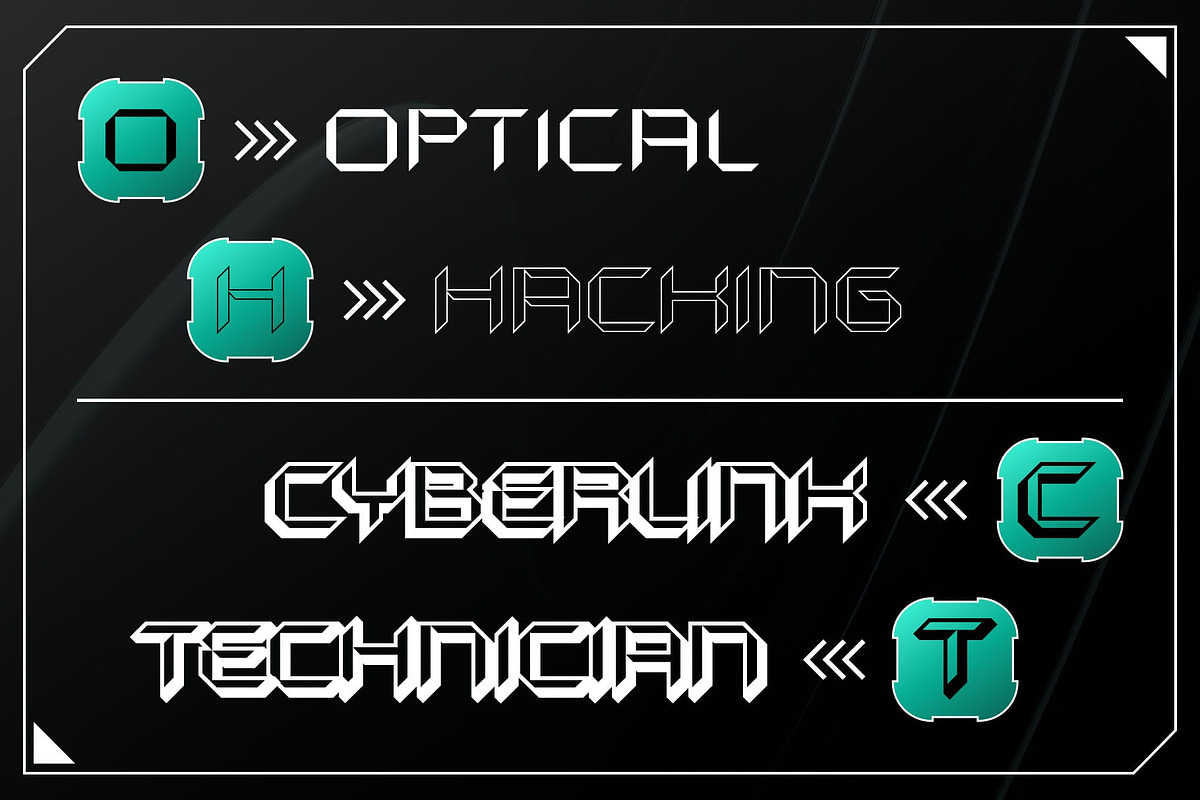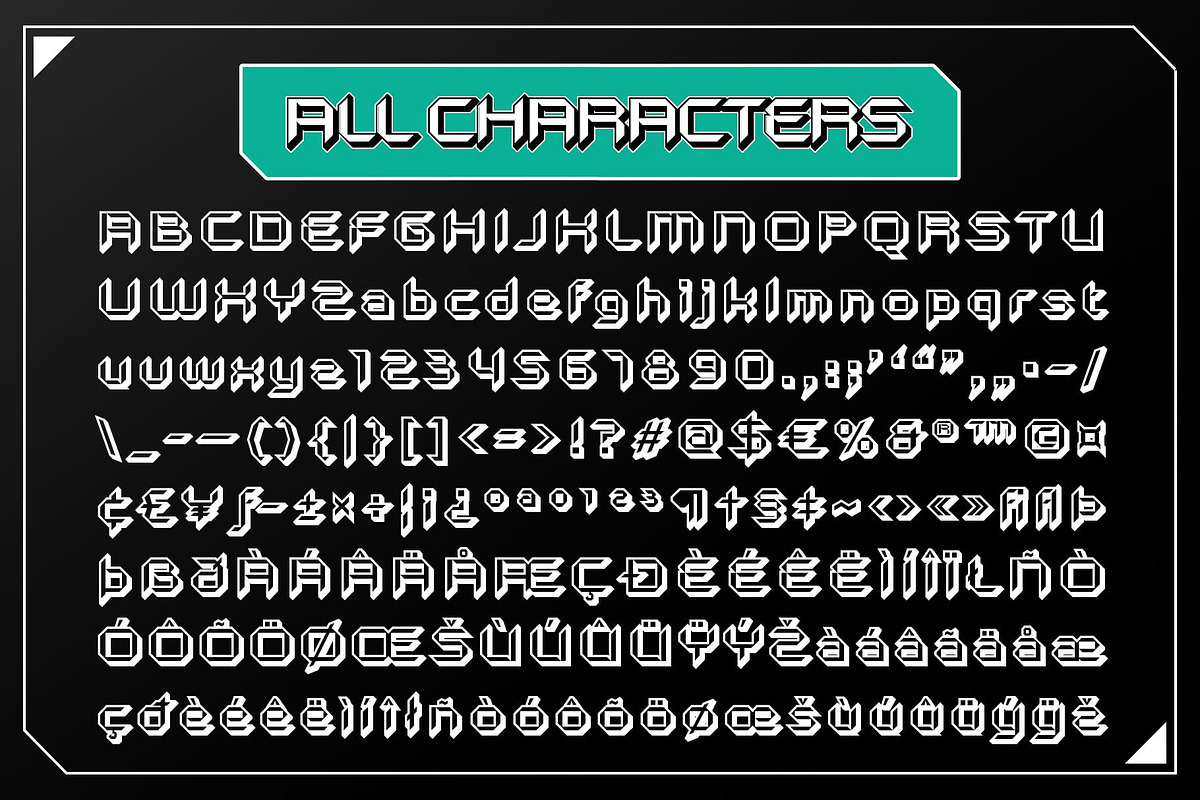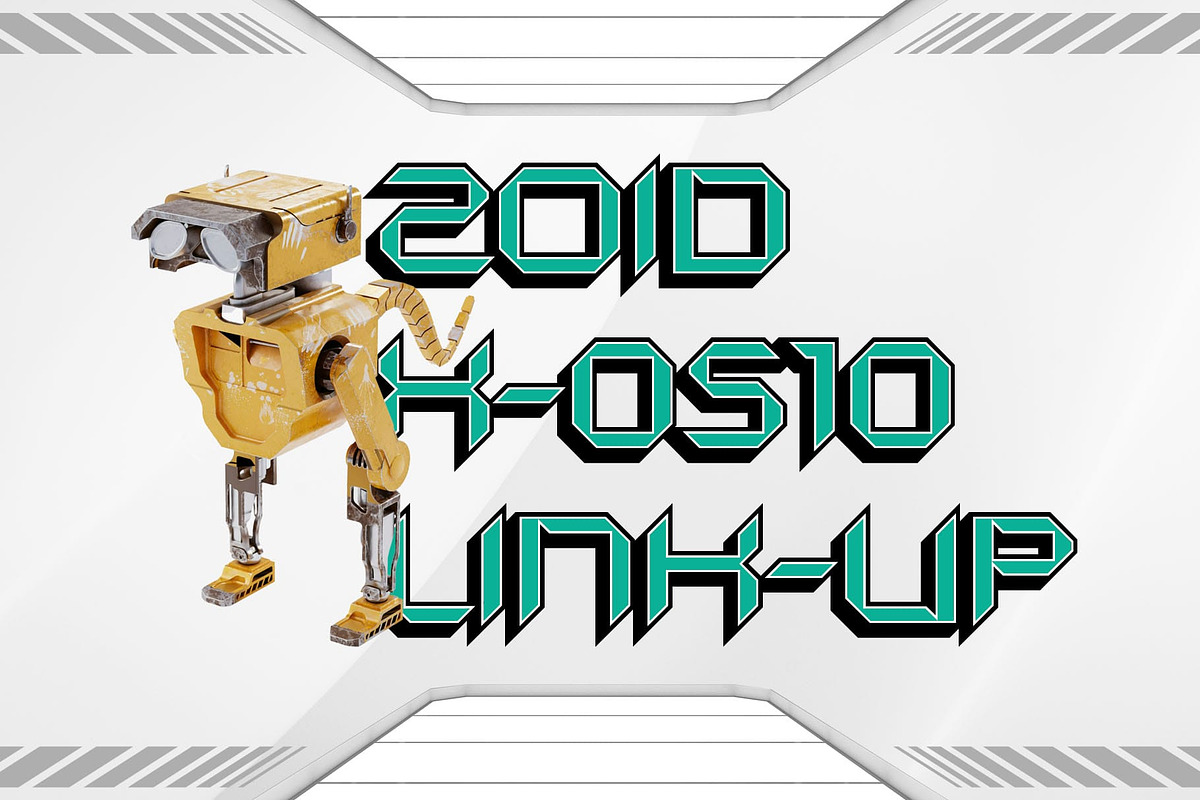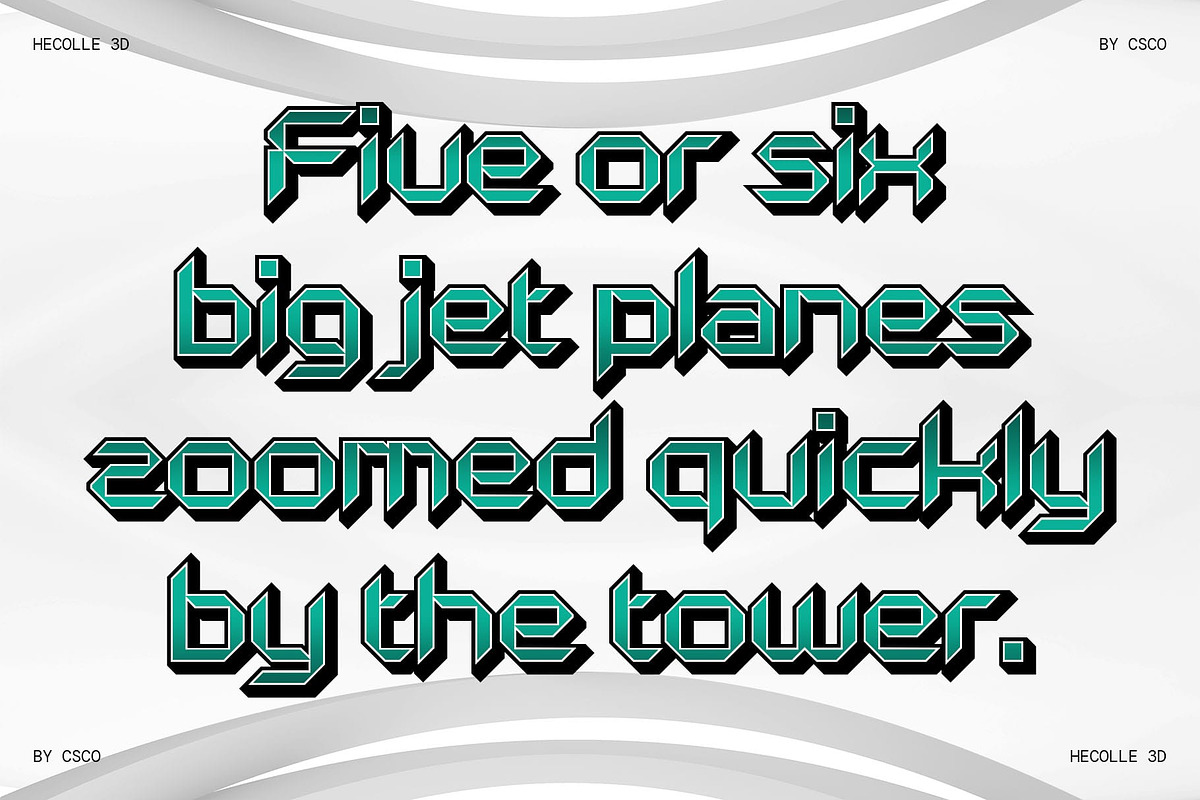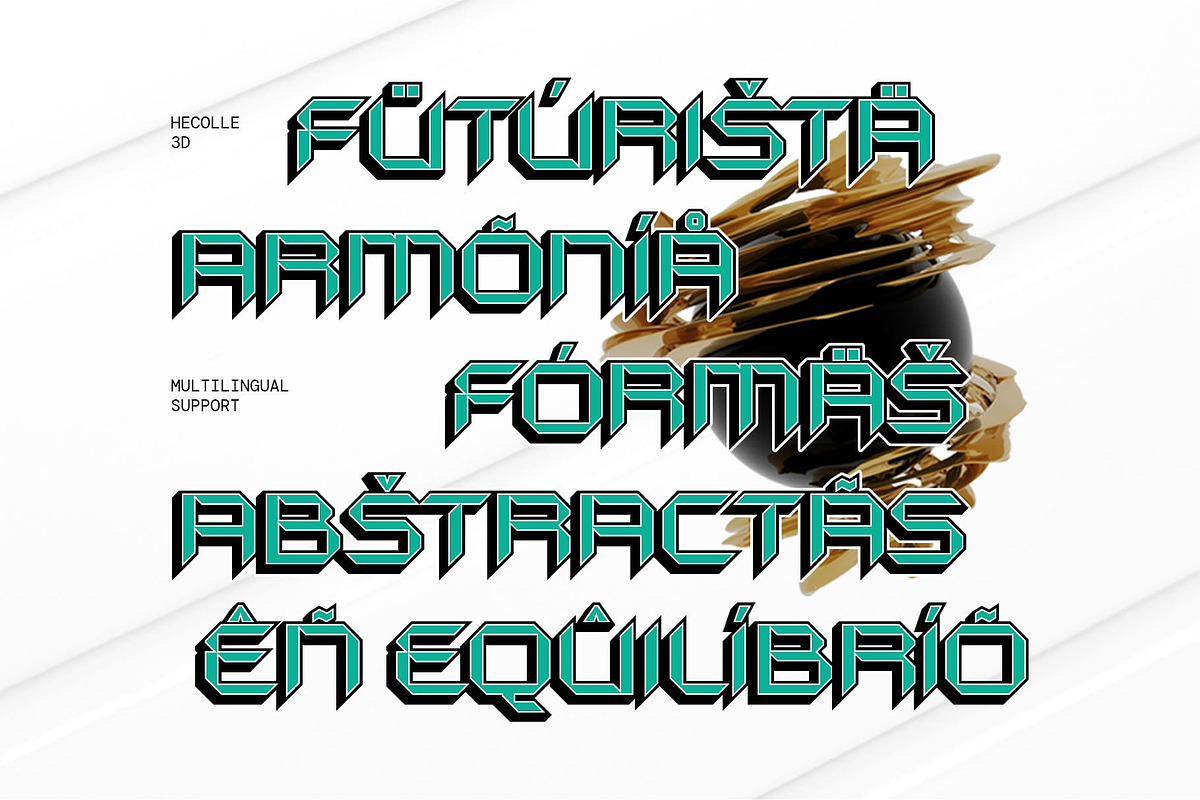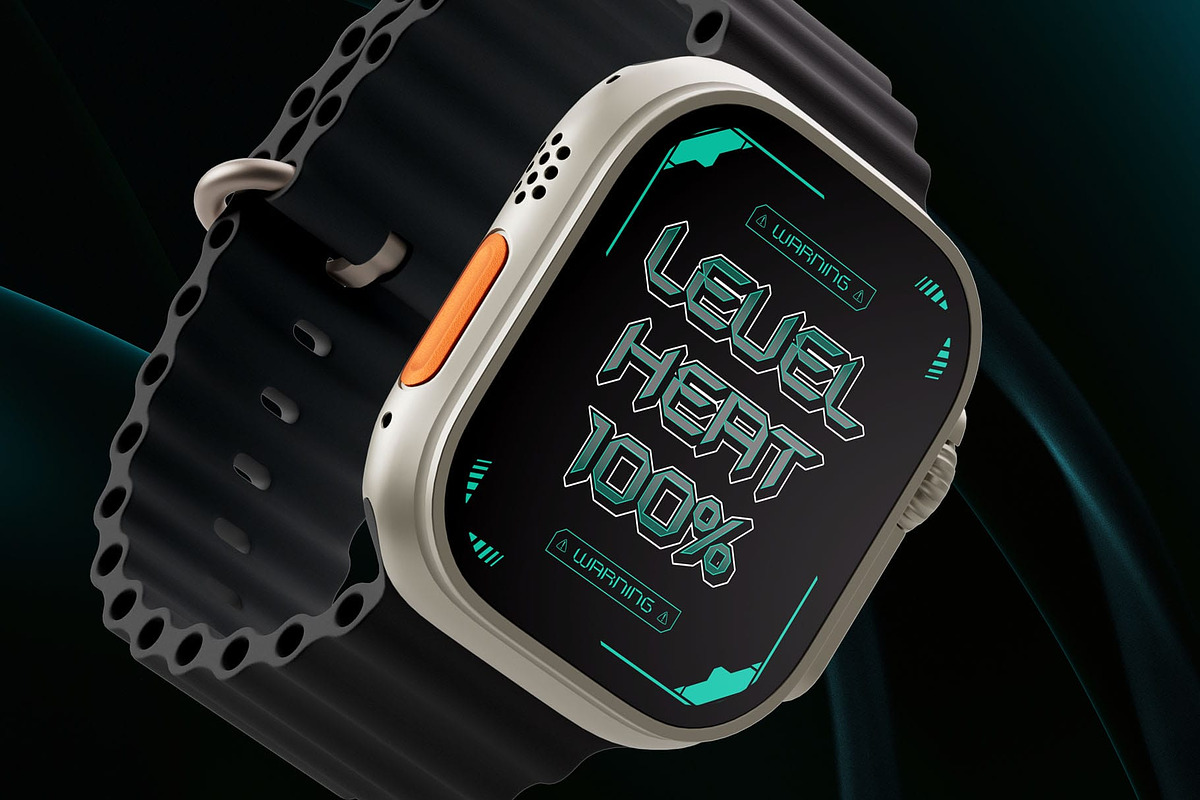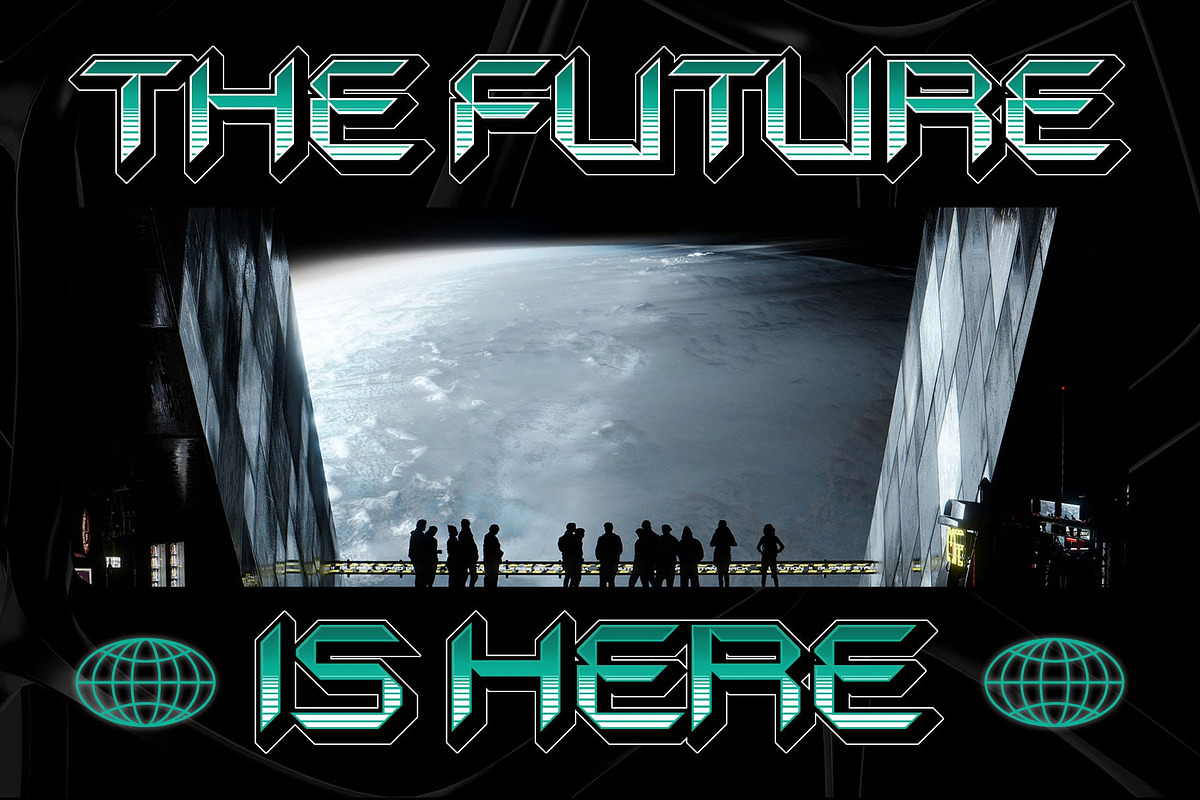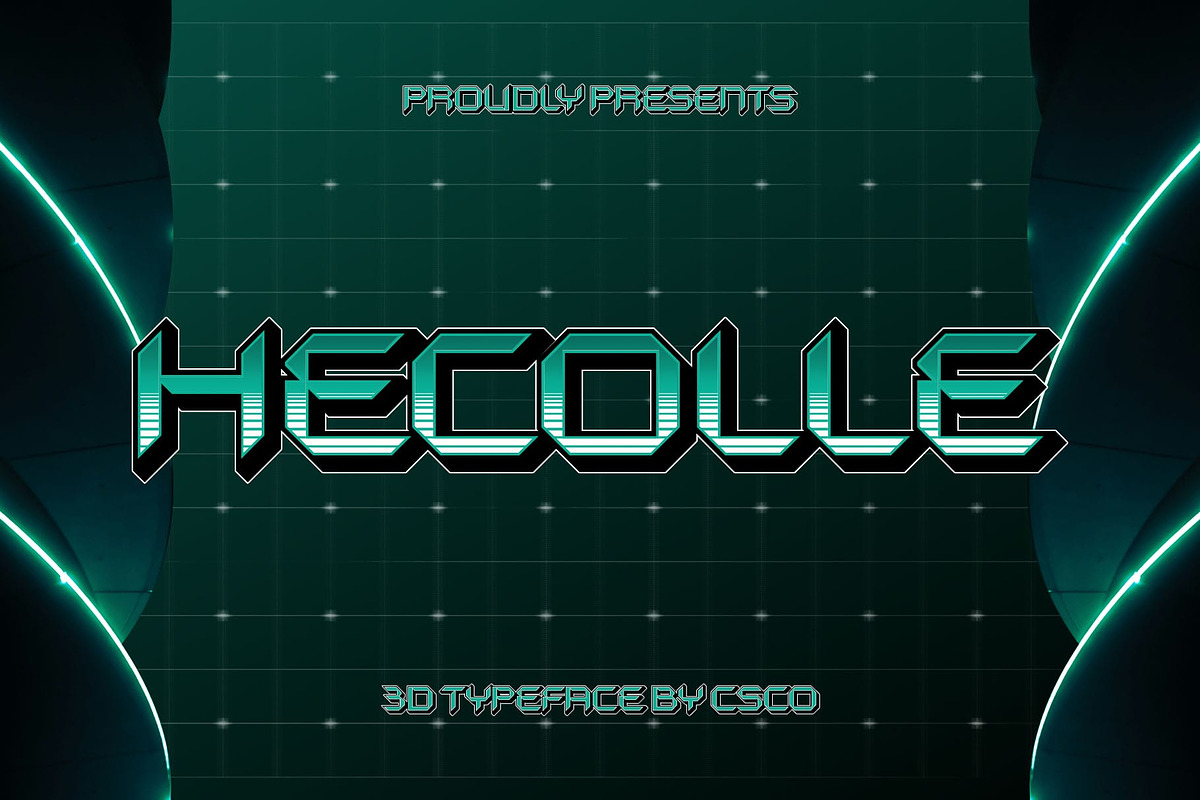
Hecolle 3D
Hecolle 3D Font: Bold, Futuristic, and Full of Depth
Modern Display Font with Techno Influence Hecolle 3D is a modern display font that draws inspiration from the world of technology and futuristic design. With sharp, clean lines and a mechanical feel, it offers a dynamic and innovative appearance. The bold, angular characters reflect the precision and efficiency of digital forms, making it the perfect typeface for projects that demand a cutting-edge, futuristic vibe.
Techno and Futuristic Style Each letter in Hecolle 3D is crafted with meticulous attention to detail, offering a robust, high-tech look that resonates with the digital age. The characters’ mechanical design evokes images of machinery, circuits, and advanced technology, making it ideal for digital products, gaming, and modern tech branding.
3D Effect for Stunning Visual Depth Enhanced with a striking 3D effect, Hecolle 3D adds a whole new dimension to your designs. The depth and movement brought to life by the 3D structure create an immersive, visually engaging experience. This effect makes the font not only stand out but also ensures it makes a bold statement on any platform.
Sleek, Sharp, and Timelessly Modern With its bold, angular forms and eye-catching 3D effect, Hecolle 3D brings a sense of movement and excitement to every design. It’s a font that exudes power and precision, ideal for designs that push boundaries and make an impact.
- Hecolle Regular
- Hecolle Outline
- Hecolle Extrude Right
- Hecolle Extrude Left